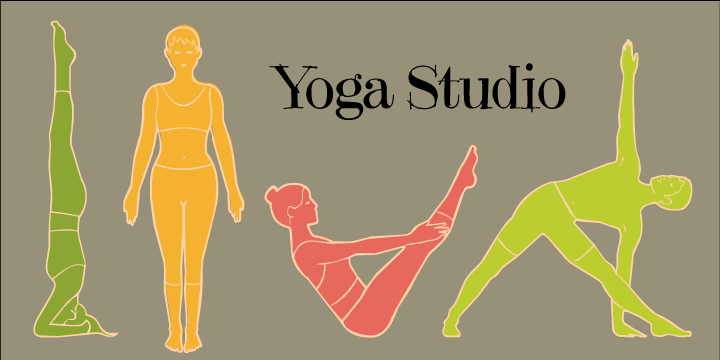
An award-winning author and illustrator and, most recently, a certified yoga instructor based in Minneapolis, Nancy Vala welcomed the invitation to try her hand at font design for type foundry Outside the Line. The result is Yoga Studio, a set of detailed yoga poses that are both useful and elegant. Tadasana, trikonasana, savasana -- from mountain pose to relaxation pose you will find what you need to put together a sun salutation vinyasa, basic instructions for beginning students or a visual guideline for your own personal practice.